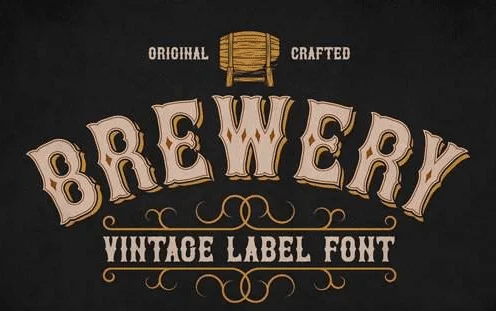
Brewery Font is perfect for craft beer branding, microbrewery logos, pub signage, beer label designs, taproom menus, brewing company marketing, bottle packaging, beer festival posters, bar merchandise, and authentic designs that celebrate craft brewing culture, artisanal beer making, and the time-honored traditions of quality fermentation and hoppy excellence.
This font is exciting because it captures the robust character and artisanal authenticity of craft brewing through bold, distinctive letterforms that feel handcrafted yet professionally polished. The strong design embodies the passion, craftsmanship, and attention to detail that defines exceptional brewmasters, making it ideal for projects that need to communicate quality ingredients, traditional methods, and the authentic spirit of independent brewing.
The Brewery Font family typically includes uppercase and lowercase characters, numerals, punctuation marks, brewing-related symbols, decorative elements, and textured variations that enable designers to create genuine craft beer branding with industry-appropriate character and appeal.
Whether you're designing for craft breweries, creating beer-related marketing materials, or developing brand identities for establishments that celebrate brewing excellence and beer culture, Brewery Font Free Download delivers the perfect typographic foundation for artisanal authenticity. Its robust character and brewing heritage make every project feel more genuine and established, ensuring your designs effectively convey craftsmanship, quality, and the passionate dedication to brewing excellence that true beer enthusiasts respect.